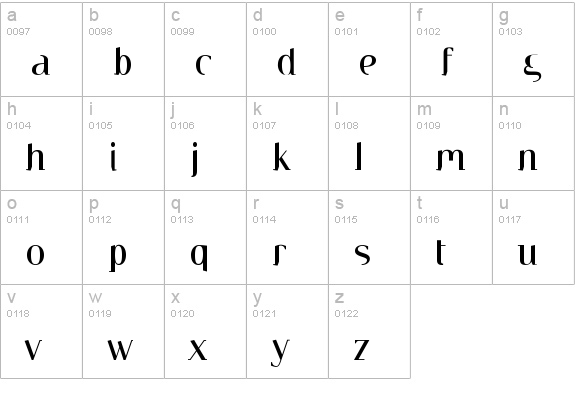
ALTERNA Font Details
ALTERNA font is a modern and stylish typeface that exudes sophistication and versatility. Its sleek lines and contemporary design make it perfect for a wide range of projects, from branding to editorial design. The clean and elegant look of ALTERNA font adds a touch of professionalism to any text, while still maintaining a sense of creativity and uniqueness. The best part about ALTERNA font is that it is completely free to download at FontsMarket.com. This means that you can easily access this beautiful typeface for all your design needs without any cost. Whether you're working on a personal project or a professional assignment, ALTERNA font is a fantastic choice that will elevate your work to the next level. With its wide range of weights and styles, ALTERNA font offers endless possibilities for creating visually stunning designs. Whether you're looking for a bold headline font or a subtle body text option, ALTERNA font has got you covered. Download ALTERNA font today and discover the endless creative opportunities it provides for your projects.